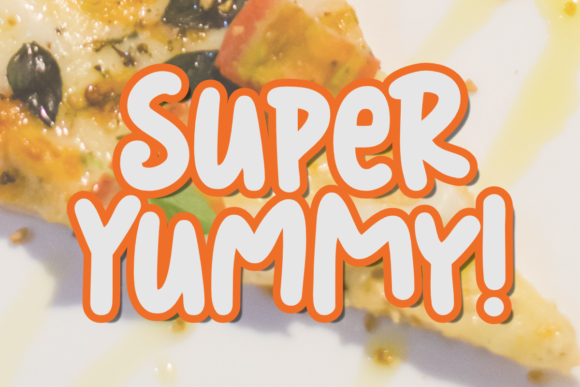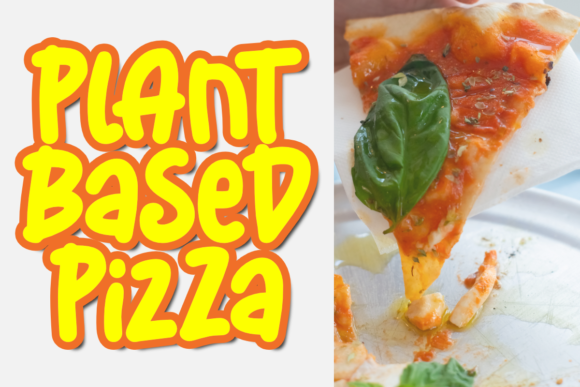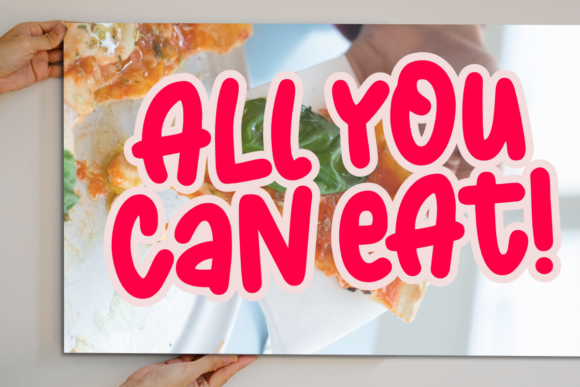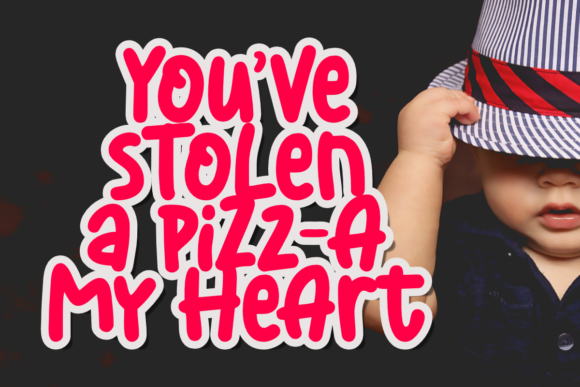
Introduction to Pizza Mania Font
Who hasn’t experienced that moment of creative bliss when you stumble upon the perfect font for your next project? For designers, it’s a feeling of excitement and relief, knowing that you’ve found the perfect design resource to bring your vision to life. And if you’re anything like us, you’re always on the lookout for high-quality fonts that can add a playful touch to your creations.
Enter the Pizza Mania Font, a delightful display font that’s sure to become your new go-to for any project that requires a lighthearted and casual vibe. With its informal feel and transparent background, this font is perfect for designers who want to add a bit of whimsy to their designs without sacrificing quality.
Whether you’re working on a product packaging design, creating a t-shirt label, or developing a logo, the Pizza Mania Font is a valuable asset that’s sure to elevate your creative project to the next level. And the best part? You can download it for free, making it an accessible design resource for designers of all levels.
Key Features of Pizza Mania Font
- Unique and playful design perfect for creative projects and designs that require a fun and energetic vibe.
- Comes in a transparent background, allowing for easy layering and customization in various design applications.
- Includes 6 different font styles with various weights and styles, providing versatility for a wide range of design needs.
- Designed with a high resolution of 300 DPI, ensuring crisp and clear text rendering in both digital and print materials.
- Perfect for use in logos, branding materials, advertisements, and other creative projects that require a fun and playful touch.
Honest Review: Pizza Mania Font
I recently stumbled upon the Pizza Mania Font, and I must say, it’s a pretty cool addition to any creative project. The free download was a huge plus, making it an excellent design resource for anyone looking to spice up their content.
One of the standout features of this font is its high quality. The font is crisp and clean, making it perfect for use in logos, headings, and even body text. The transparent background is also a nice touch, allowing you to easily place the font over any image or design element.
Here are some things that work well about the Pizza Mania Font:
- Easy to use, even for beginners
- Works well for a variety of creative projects
- Limited character set
- May not be suitable for large-scale commercial use
Overall, I’m quite impressed with the Pizza Mania Font. It’s a great addition to any designer’s toolkit, and its high quality and transparent background make it a standout choice. While it may have some limitations, it’s definitely worth checking out for your next creative project. ✨
Pizza Mania Font
The Pizza Mania Font is a free design resource perfect for creative projects requiring a high-quality, eye-catching font. With a transparent background, this font is versatile and easy to use in various applications.
Tips for Getting the Most Out of Pizza Mania Font
To get the most out of the Pizza Mania Font, use it in conjunction with other design elements, such as bold colors and custom graphics. This font is also great for creating a consistent brand identity across various platforms.
Common Use Cases for Pizza Mania Font
The Pizza Mania Font is commonly used in social media graphics, blog posts, and marketing materials. Its high-quality design and transparent background make it a versatile and easy-to-use design resource.